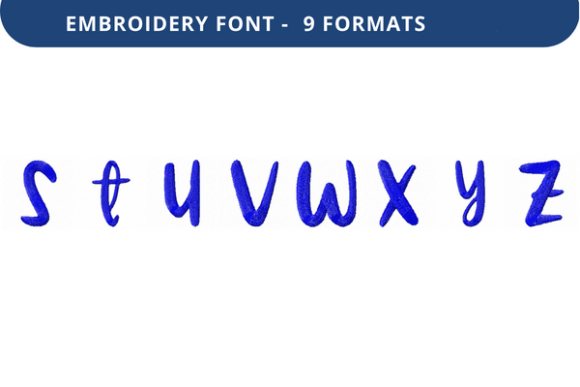
Animal Crossing Font: A Creative Solution for Personalized Embroidery Designs
If you're looking to add a personal touch to your embroidery projects, the Animal Crossing Font is an excellent choice. This high-quality embroidery font offers a unique blend of style and functionality, making it ideal for anyone who wants to personalize their fabric creations with names, dates, or meaningful quotes. Whether you're a seasoned embroiderer or just starting out, the Animal Crossing Font can help you bring your creative ideas to life with ease.
What Is Animal Crossing Font?
The Animal Crossing Font is a specialized embroidery font designed to mimic the playful and whimsical aesthetic of the popular Animal Crossing video game series. It features a clean, stylized design that allows for easy readability while maintaining a fun and approachable look. This font is perfect for those who want to infuse their embroidery projects with a sense of charm and personality.
Challenges in Personalized Embroidery
Creating personalized embroidery designs can be a rewarding yet challenging process. One of the biggest hurdles many crafters face is finding the right font that balances aesthetics with practicality. Traditional fonts may not translate well to fabric, leading to unclear or unattractive results. Additionally, sourcing high-quality embroidery files that work across different machines can be time-consuming and frustrating.
Another common challenge is the lack of customization options. Many embroidery fonts are limited in terms of size, style, and formatting, which can restrict the creativity of the final design. For those who want to create unique, eye-catching pieces, this limitation can be a significant drawback.
How Animal Crossing Font Helps Address These Challenges
The Animal Crossing Font directly addresses these challenges by offering a versatile, high-quality solution that simplifies the embroidery process. Its clear, readable design ensures that even complex phrases or names will look great on fabric, without losing their intended meaning or visual appeal.
One of the standout features of this font is its flexibility. Users can adjust the size, spacing, and placement of the text to suit their specific needs. This level of customization allows for greater creative freedom, enabling crafters to experiment with different layouts and styles until they achieve the desired effect.
Practical Applications of Animal Crossing Font
The Animal Crossing Font is incredibly versatile and can be used in a variety of practical applications. Here are some popular uses:
These applications highlight how the Animal Crossing Font can be used to elevate everyday items and turn them into meaningful, personalized pieces.
Considerations for Using Animal Crossing Font
While the Animal Crossing Font is a powerful tool, there are a few considerations to keep in mind when using it:
Who Benefits from Animal Crossing Font?
The Animal Crossing Font is suitable for a wide range of users, each with their own unique needs and goals:
Regardless of your experience level, the Animal Crossing Font offers a simple yet effective way to enhance your embroidery projects and express your creativity.